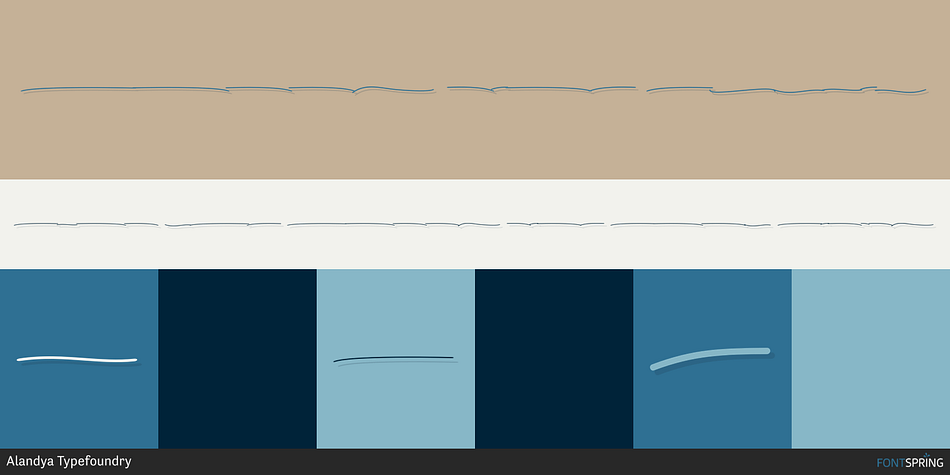
Hommy Land Extras
Hommy Land is a font family. This typeface has two styles and was published by Alandya Typefoundry.
Hommy Land script is a beautiful and simple handwriting script font, contemporary and fashionable, Hommy Land script looks elegant for a wide variety of designs. This elegant font can be read and looks good as a title or body text. This font will be perfect for many different designs for magazine headlines, social media, branding, wedding invitations, cards, etc.